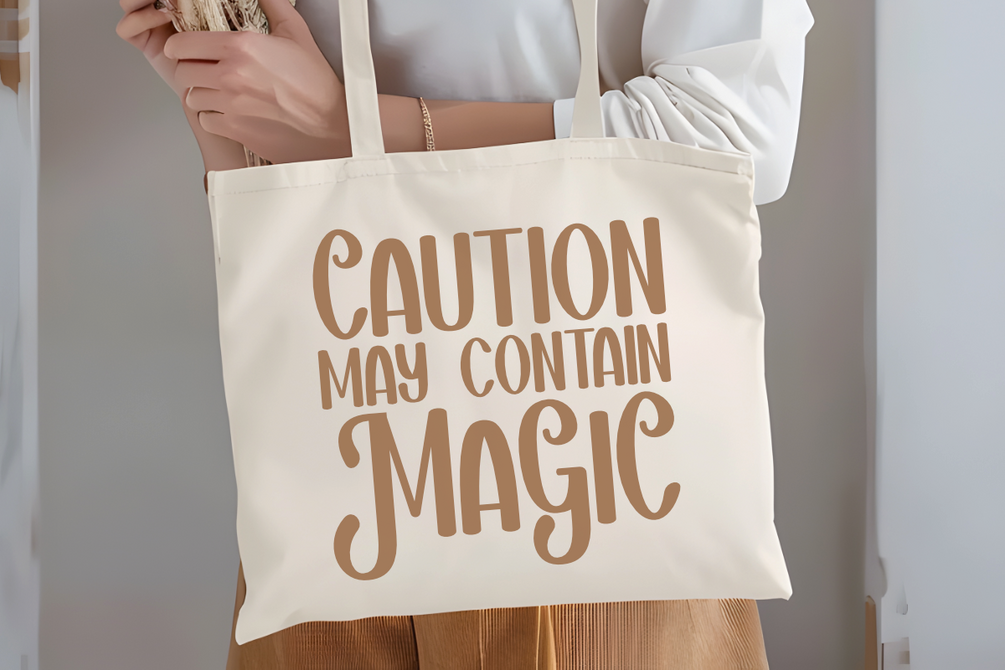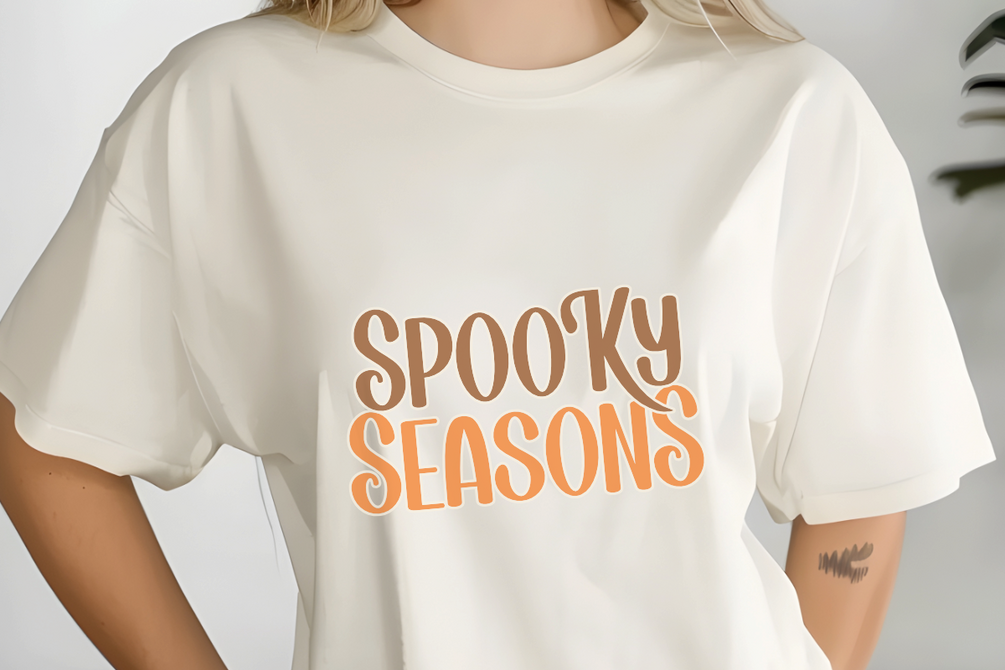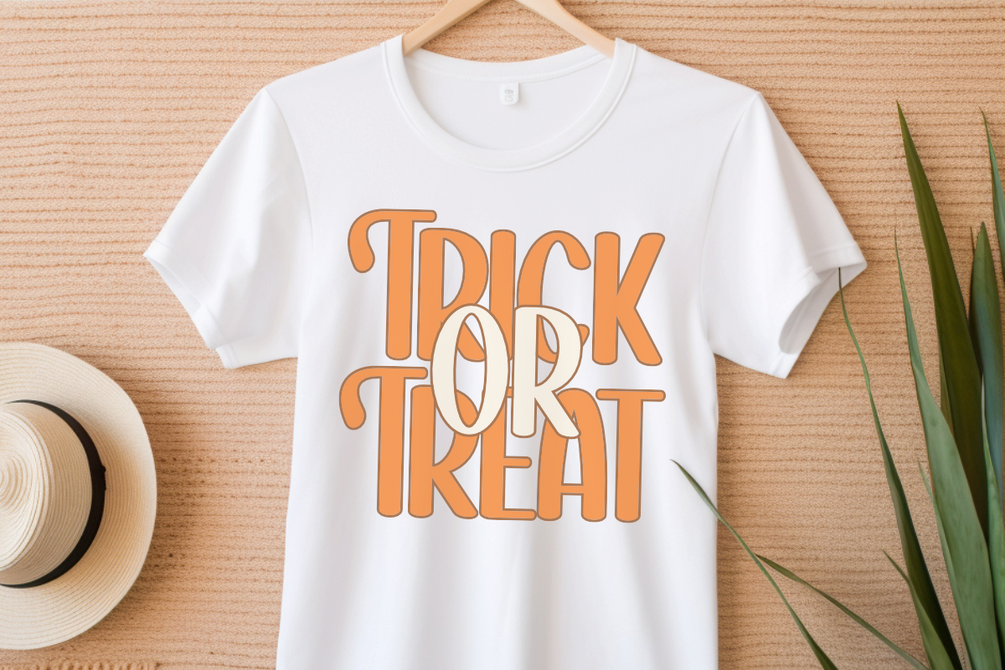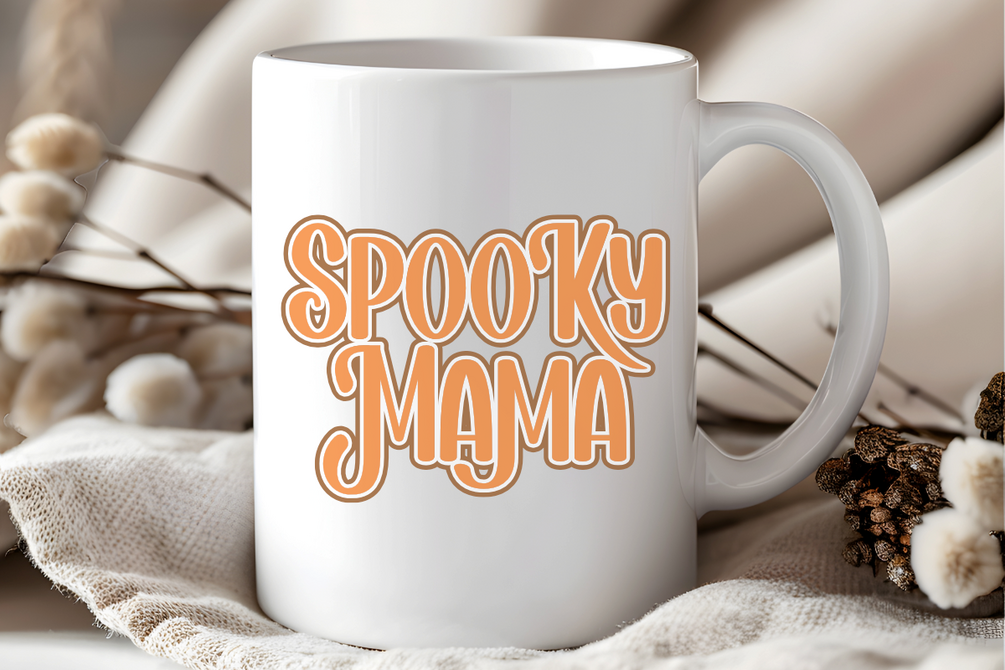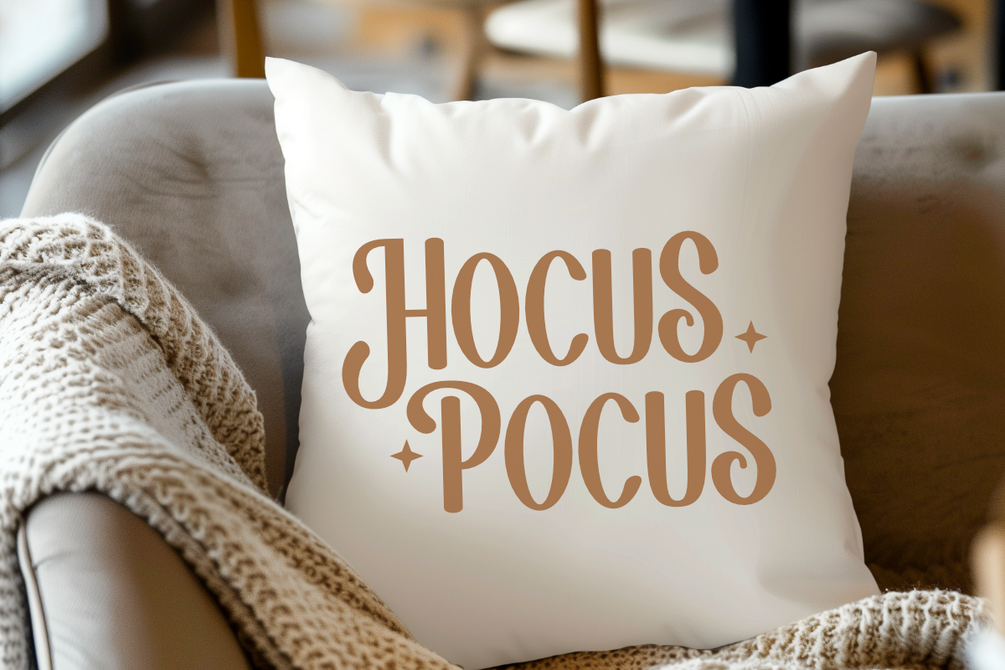
Spooky Dreams - Cute Halloween Sans Serif Font
Spooky Dreams is a bold and cute retro sans serif font, inspired by vintage halloween design. This font is perfect for a design that requires a playful and fun accent. Spooky Dreams is suitable for book covers, posters, packaging, merchandise, logotype, and much more.